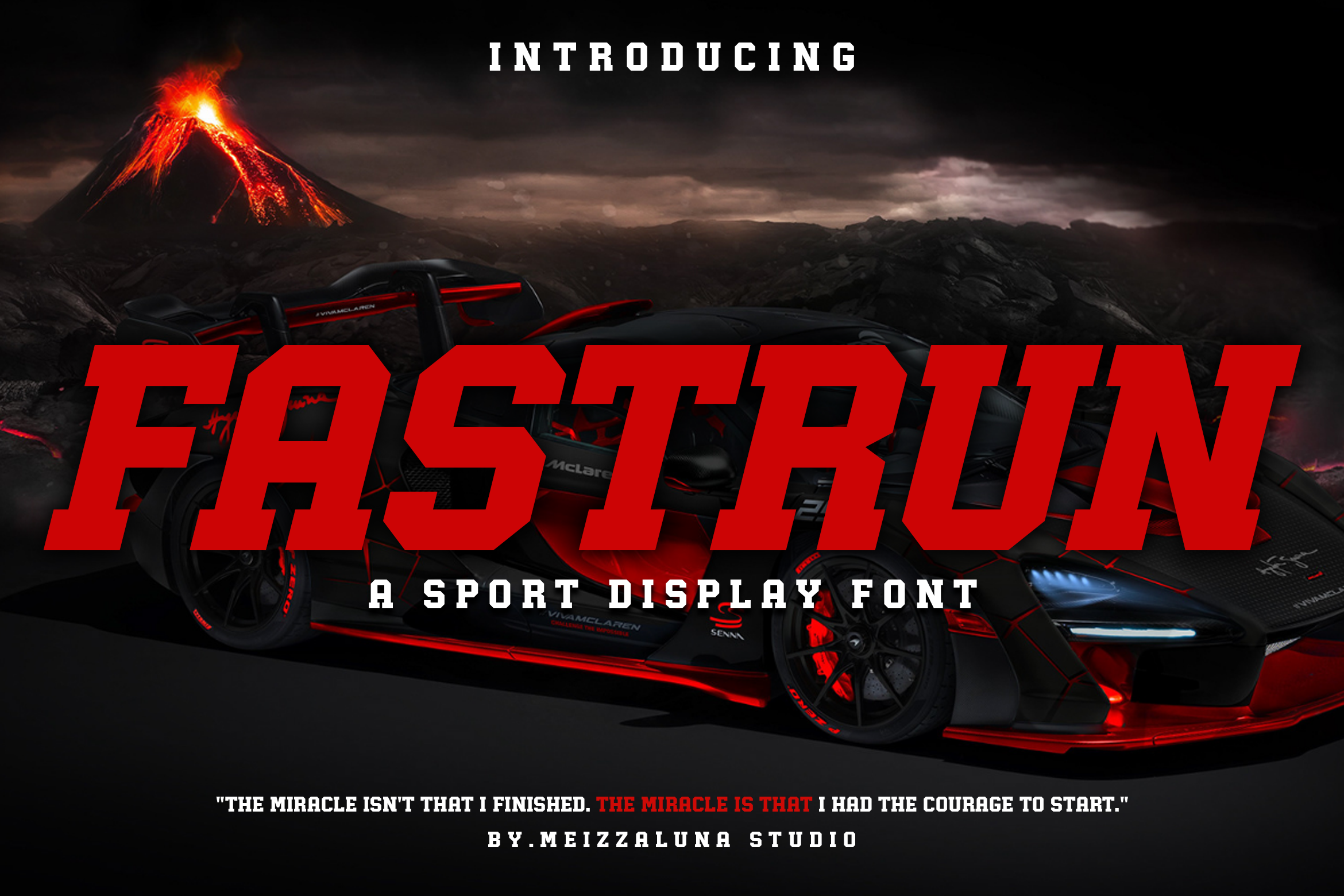
Fastrun - A Sport Display Font
Fastrun is a bold and authentic display font. It can be used for each of your sports related designs or nearly anything that requires strong characters. Files: